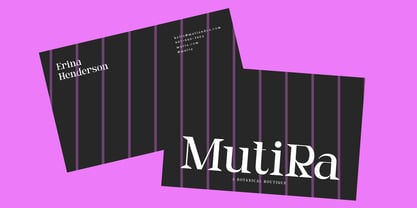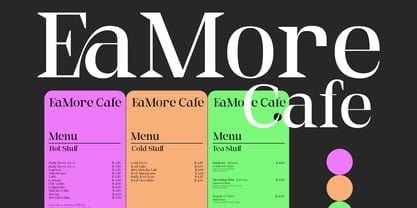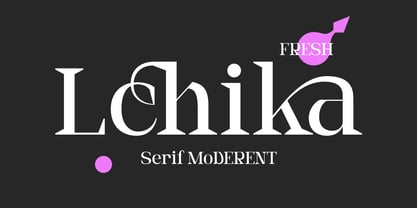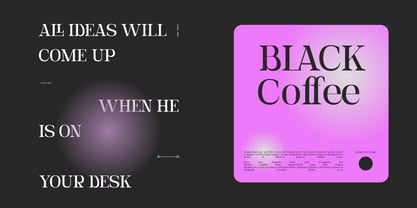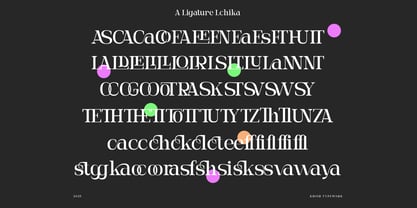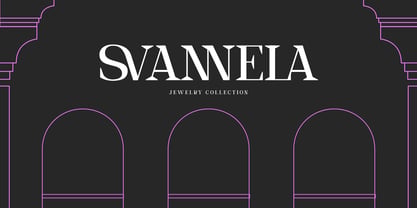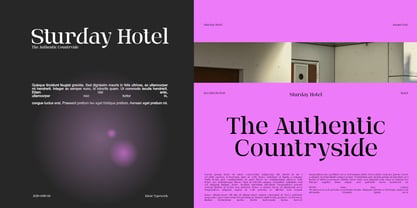
Lchika
The Lchika Font Family was designed by Muhammad Romzul Khoir and published by Khoir. Lchika contains 1 styles. More about this family
This modern serif font has a light, clean look, with lots of ligatures and a very distinctive look, yet maintains an attractive and elegant style, making it easy to design with. This font is perfect for your design needs, such as posters, logos, branding, social media, books, magazines, and more. Lchika Uppercase/Lowercase Ligature 75+ Language So what are you waiting for? immediately purchase this font, feel free to comment, Thank you for seeing